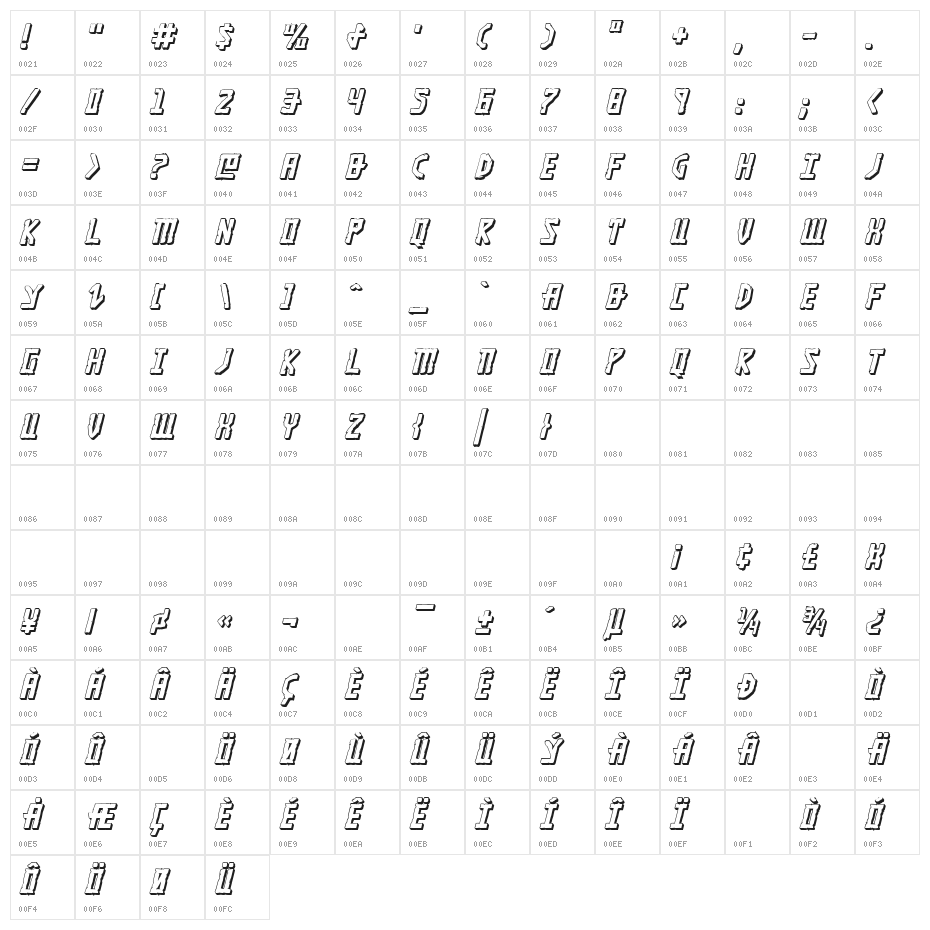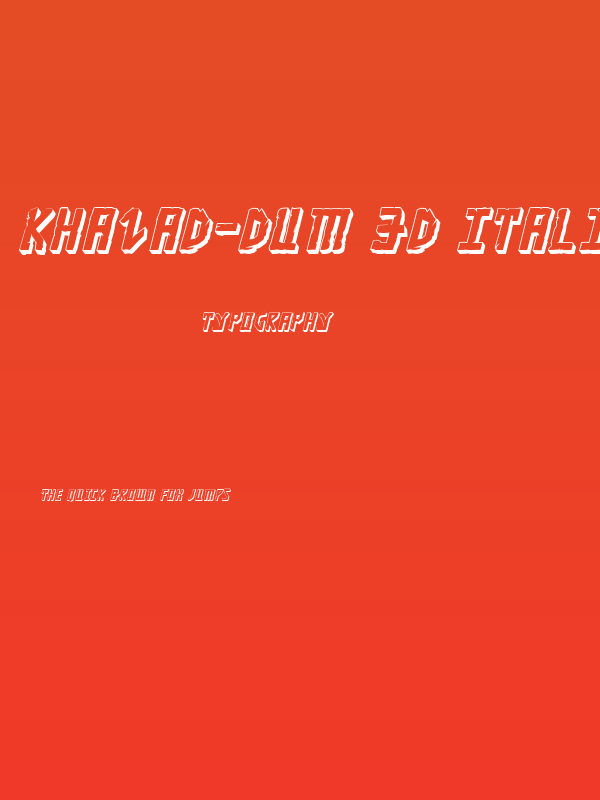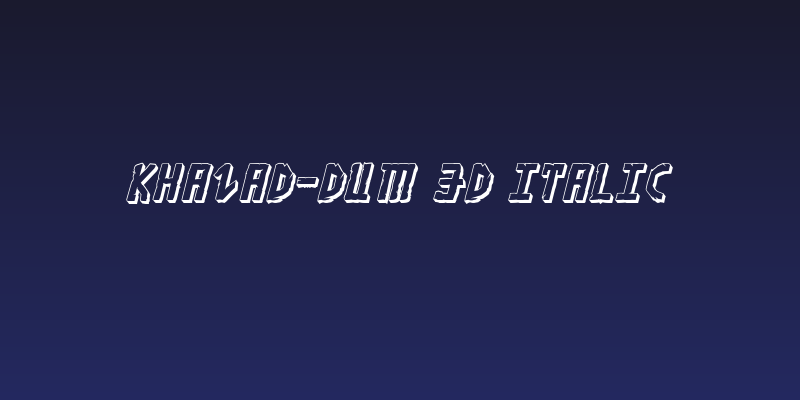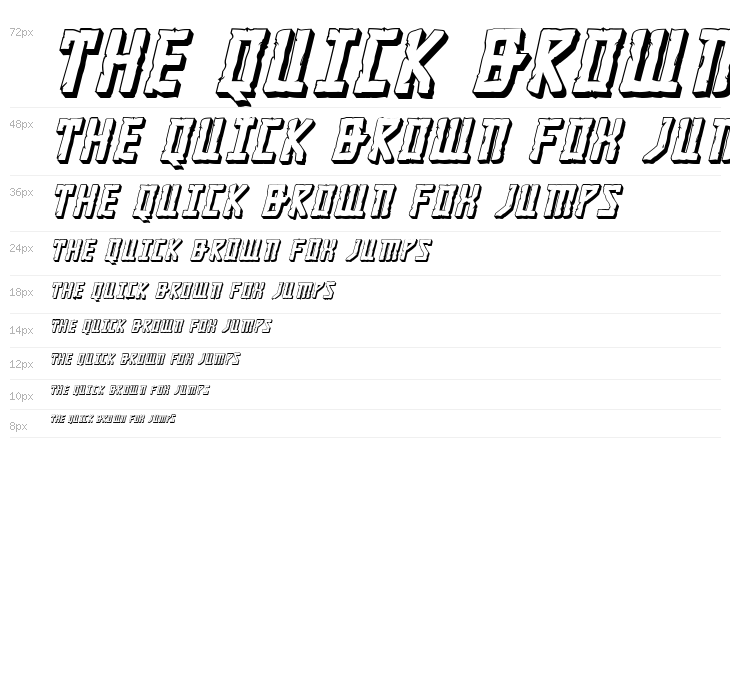
Khazad-Dum 3D Italic Font
Khazad-Dum 3D Italic Description
This font features a bold, three-dimensional design with an italic slant, creating a dynamic and impactful appearance. The characters are outlined with a shadow effect, giving them a sense of depth and movement. The angular, geometric shapes of the letters convey a modern and edgy style, making it ideal for attention-grabbing headlines or titles. The uppercase and lowercase letters maintain a consistent style, with a strong emphasis on sharp edges and clean lines. Numbers and special characters are designed to match the bold and striking aesthetic, ensuring a cohesive look across all text elements.
| Proposed Projects | Ideal for video game titles, movie posters, branding for tech companies, or any project requiring a bold, futuristic look. |